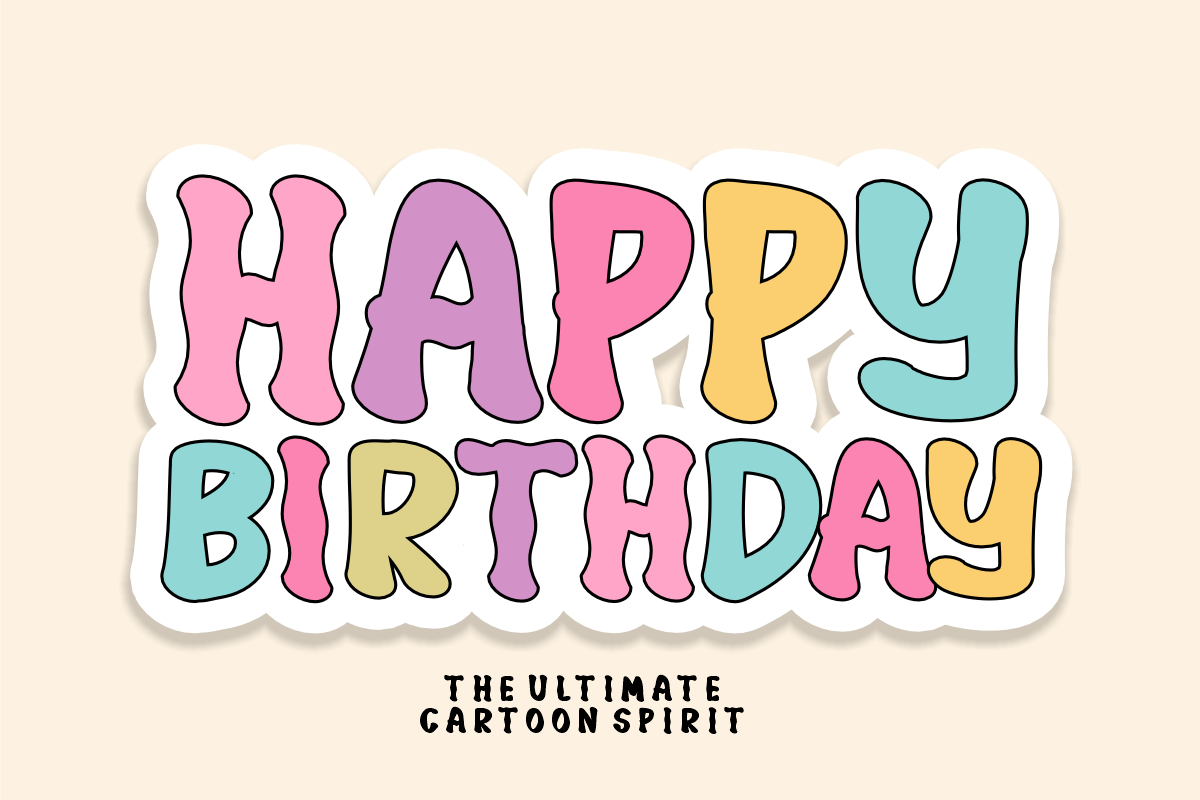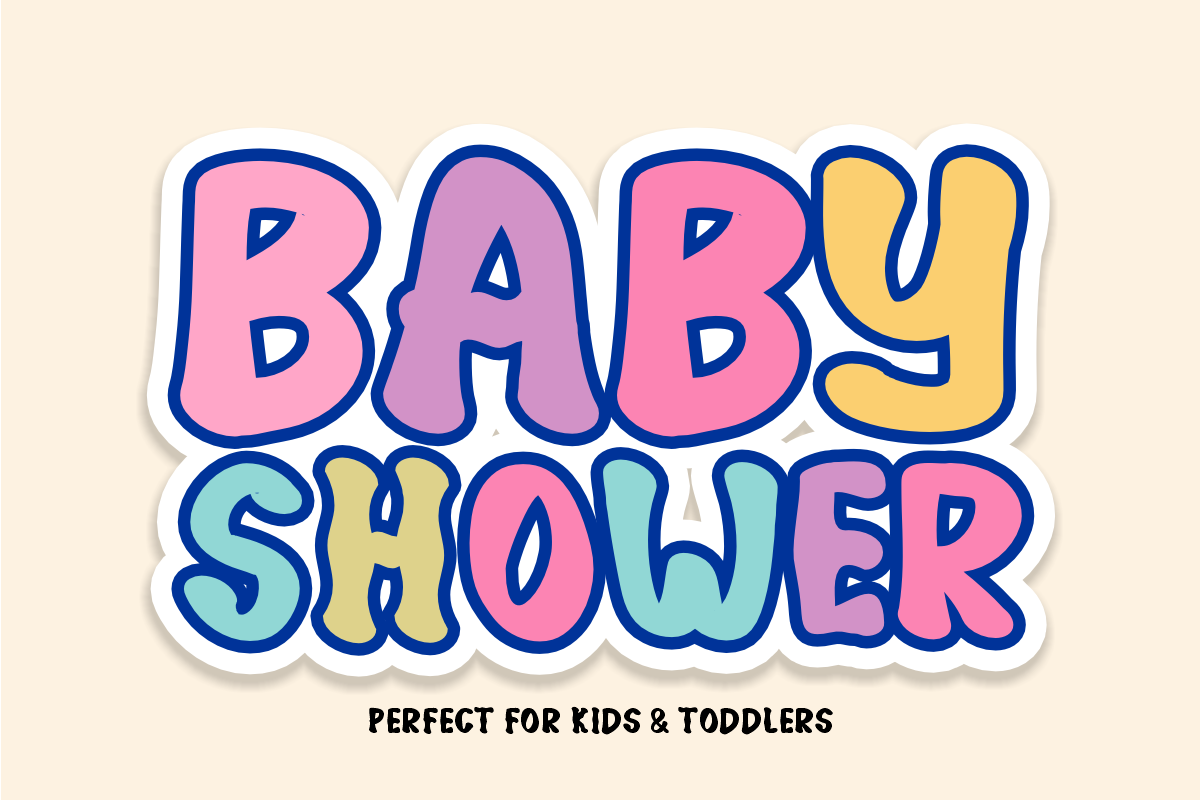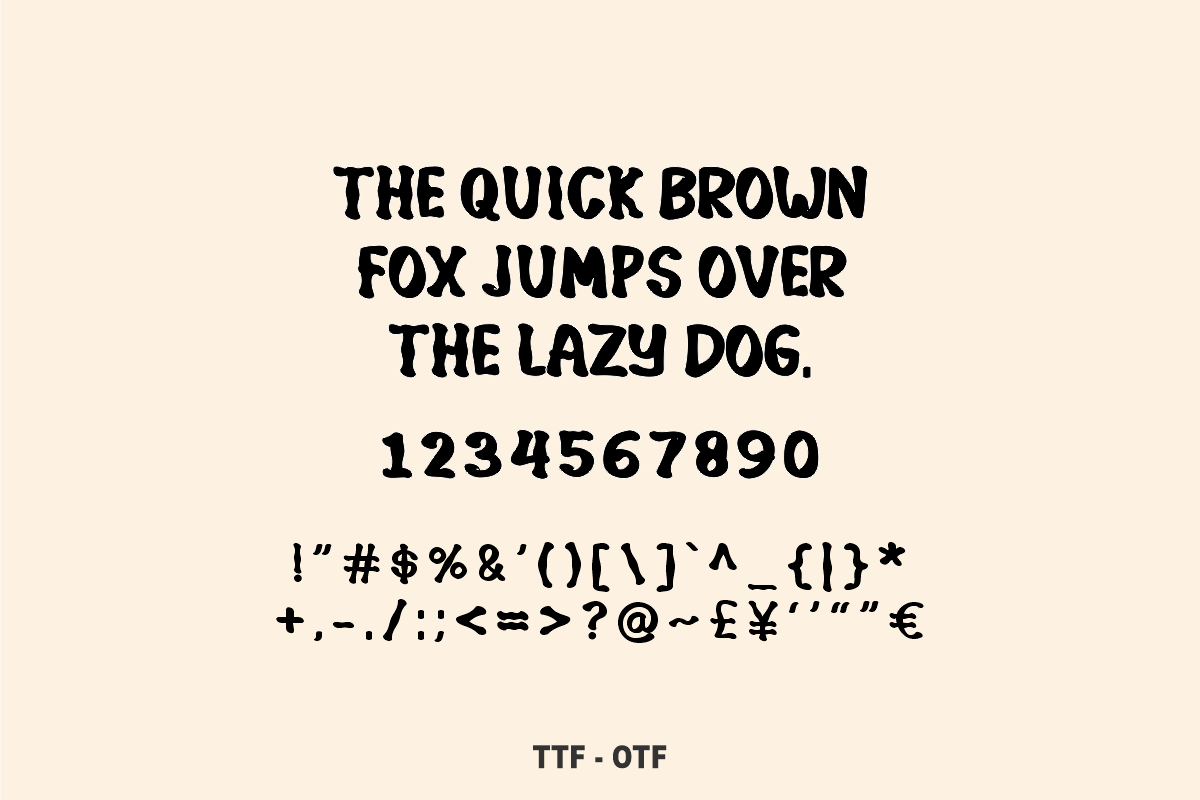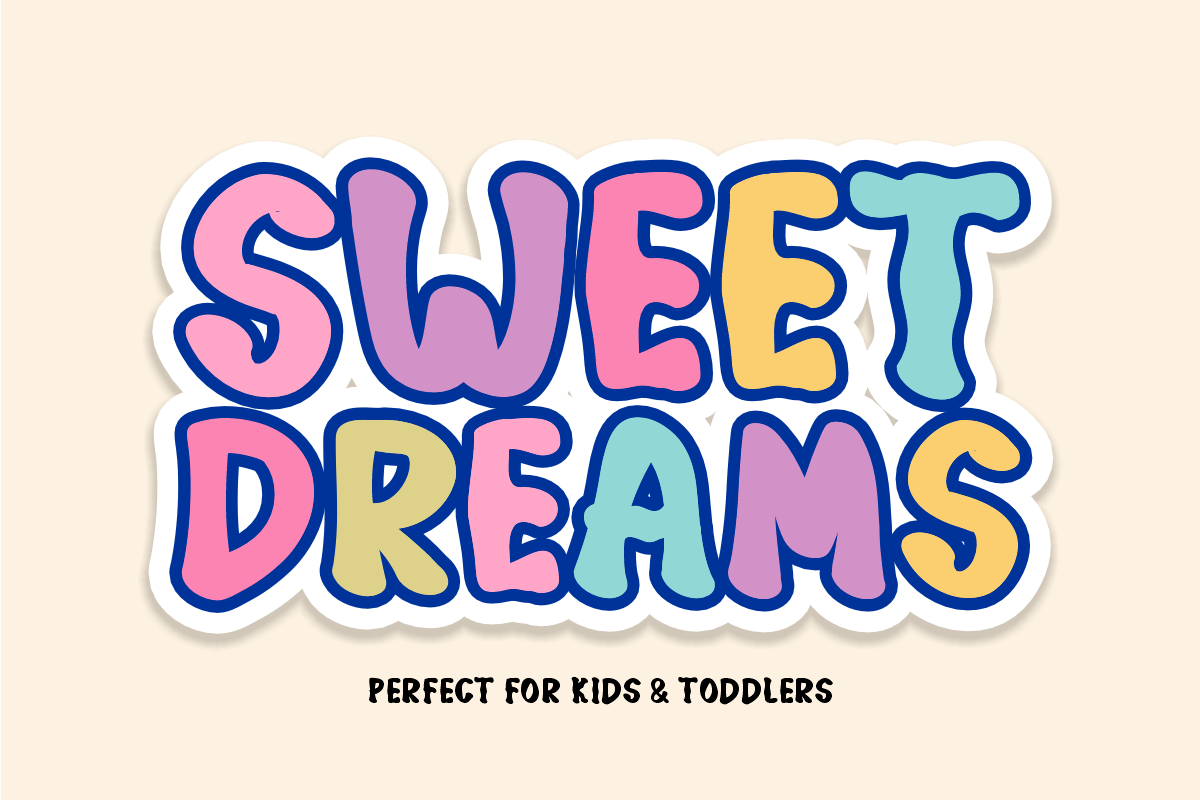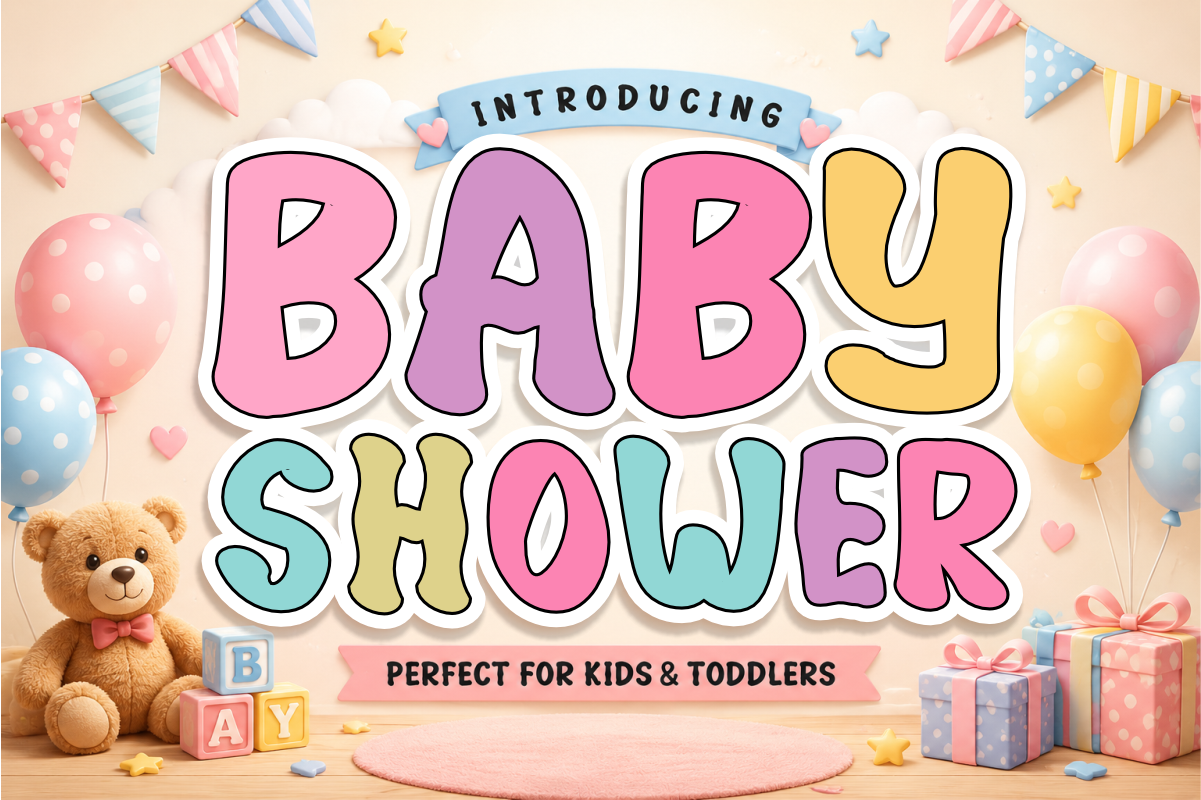
Baby Shower - Cute Bubbly Kids Font
Baby Shower is a cute, bouncy display font featuring soft, bubbly letterforms wrapped in a clean sticker-style outline. Full of sweet toddler energy and playful pastel charm, this cheerful cartoon font brings a joyful pop to baby shower invitations, nursery decor, and kids' craft projects. Every character is cleanly vectorized to guarantee high-resolution prints and smooth, effortless cutting on Cricut and Silhouette machines.